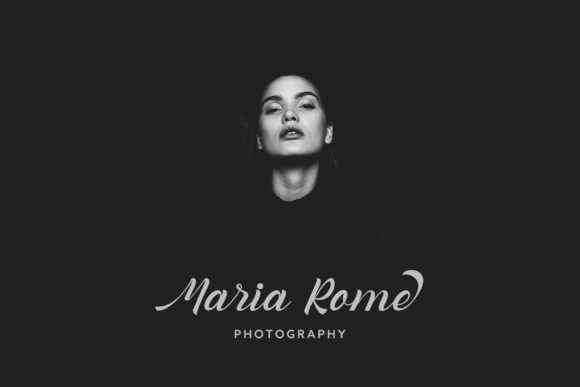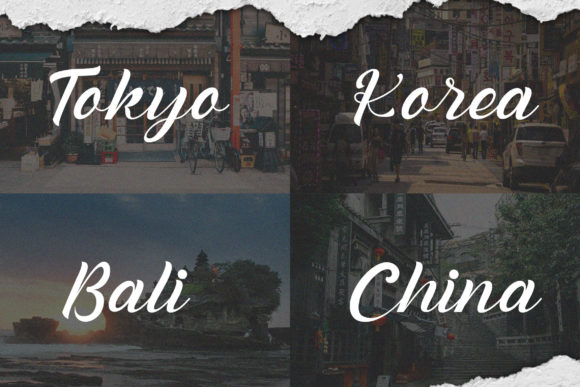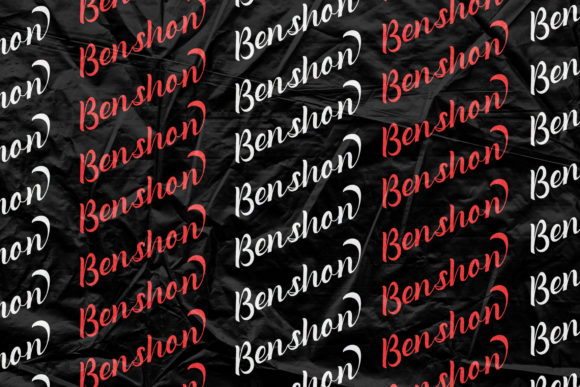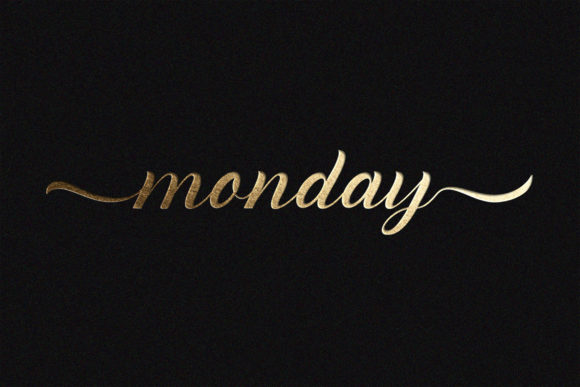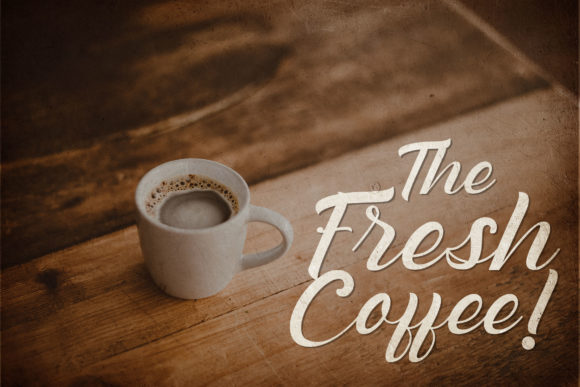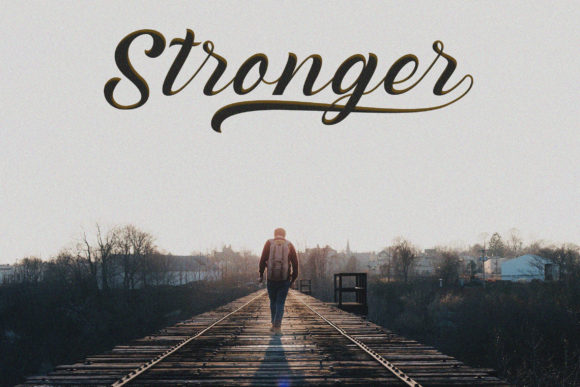
Discover the Charm of Anttona Font: A Perfect Blend of Vintage and Modern Style
Are you a designer or crafter looking for a unique and versatile font to elevate your creative projects? Look no further than Anttona Font, a beautiful script font that seamlessly combines vintage charm with modern style. In this article, we’ll explore the features and benefits of Anttona Font, and how it can be used to add a touch of elegance and sophistication to a wide range of designs.
What is Anttona Font?
Anttona Font is a stunning script font that boasts a distinctive vintage touch, while also incorporating modern elements to create a truly unique and stylish typeface. With its flowing lines, elegant curves, and refined details, Anttona Font is the perfect choice for designers and crafters who want to add a touch of class and sophistication to their work.
Key Features of Anttona Font
So, what makes Anttona Font so special? Here are just a few of its key features:
- Vintage touch with a modern twist: Anttona Font combines the best of both worlds, blending traditional vintage elements with modern style to create a truly unique typeface.
- Highly versatile: Anttona Font works beautifully for a wide range of design applications, including clothing, book titles, stationery designs, quotes, branding, logos, greeting cards, and more!
How to Use Anttona Font in Your Designs
Anttona Font is an incredibly versatile typeface that can be used in a multitude of design applications. Here are just a few ideas to get you started:
- Clothing designs: Add a touch of elegance and sophistication to your clothing designs with Anttona Font. Perfect for creating stylish and eye-catching labels, tags, and packaging.
- Book titles: Use Anttona Font to create stunning book titles that will grab attention and make your book stand out from the crowd.
- Stationery designs: Add a touch of class and sophistication to your stationery designs, including business cards, letterheads, and more.
- Quotes and typography: Anttona Font is perfect for creating beautiful quotes and typography designs that will inspire and delight.
- Branding and logos: Use Anttona Font to create unique and memorable branding and logos that will help your business stand out.
- Greeting cards: Add a touch of elegance and sophistication to your greeting cards, including invitations, thank-you cards, and more.
Benefits of Using Anttona Font
So, why choose Anttona Font for your design projects? Here are just a few benefits:
- Unique and distinctive: Anttona Font is a truly unique and distinctive typeface that will help your designs stand out from the crowd.
- Elegant and sophisticated: Anttona Font adds a touch of elegance and sophistication to any design, making it perfect for high-end branding, packaging, and more.
- Highly versatile: Anttona Font can be used in a wide range of design applications, making it a great addition to any designer’s toolkit.
In conclusion, Anttona Font is a stunning script font that combines vintage charm with modern style to create a truly unique and versatile typeface. With its PUA encoding, elegant curves, and refined details, Anttona Font is the perfect choice for designers and crafters who want to add a touch of elegance and sophistication to their work. Whether you’re creating clothing designs, book titles, stationery designs, or more, Anttona Font is sure to become a favorite in your design toolkit.